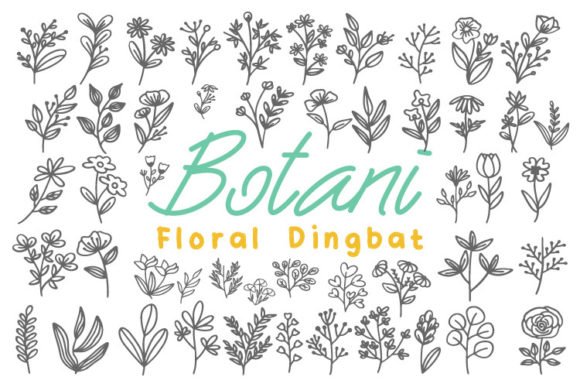
Introduction to Botani Font
Botani is a lovely and delicate dingbats font.
This nature related font will make each of your projects more interesting and lively Add it confidently to your library, and you will love the results.
Why Choose Botani Font?
Botani Font offers exceptional quality and versatility, making it a valuable addition to your design toolkit. Whether you’re creating for personal projects or commercial use, Botani Font delivers professional results.